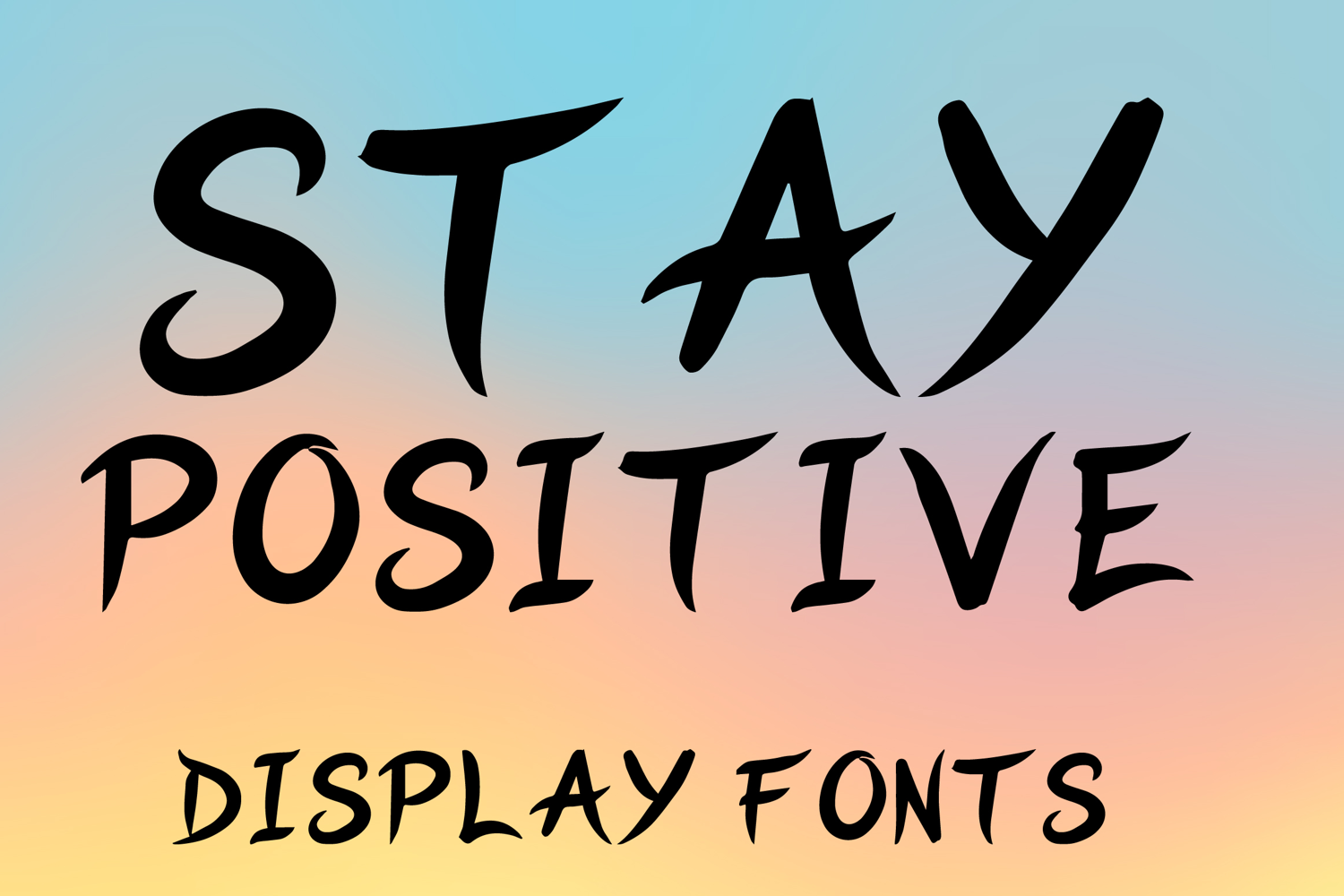
STAY POSITIVE
STAY POSITIVE is a bold decorative display font with a stylish handcrafted look and subtle modern flair. Its uppercase letterforms feature sweeping curves, tapered strokes, and softly pointed terminals that create an elegant, expressive, and eye-catching personality. Designed with uppercase letters A–Z and numbers 0–9, STAY POSITIVE is perfect for branding, posters, packaging, quotes, logos, social media graphics, and creative projects that need a strong and uplifting statement.